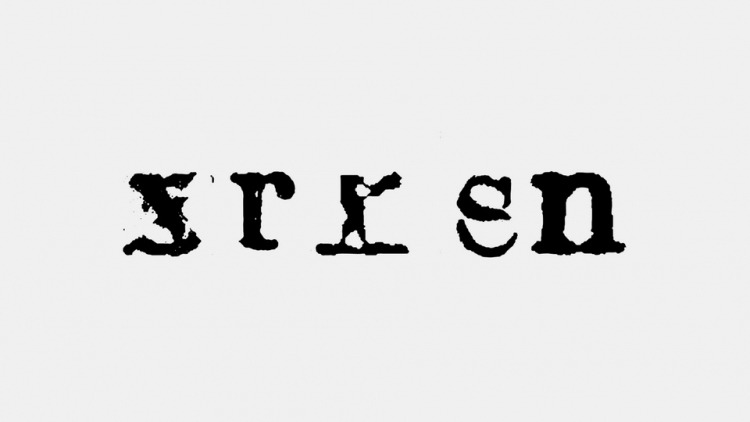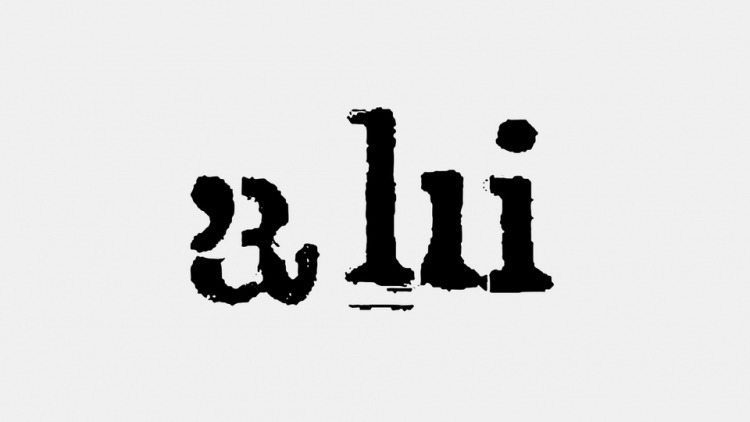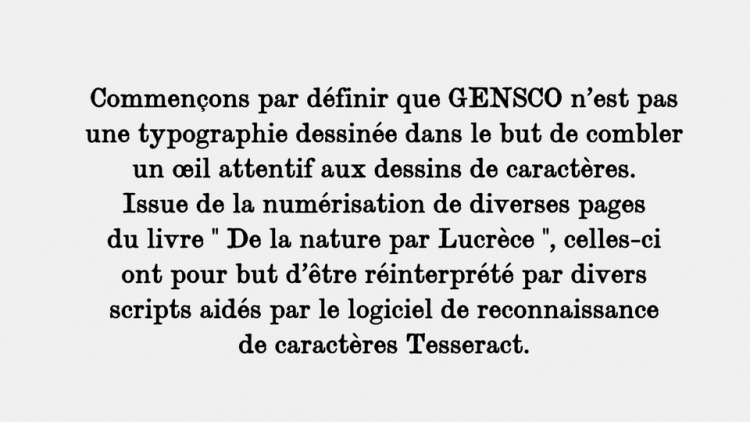
Gensco Display Font is a classic serif display font generated through the scan and the analyze of some pages from Lucretia, “De la nature” Book. The pages are going through multiple scripts and the Tesseract OCR’s confidence level to select some letters and generate multiple instance of the Typography. Gensco is perfect for creating sublimation designs, shirts, stickers, logos, signs, social media and more!